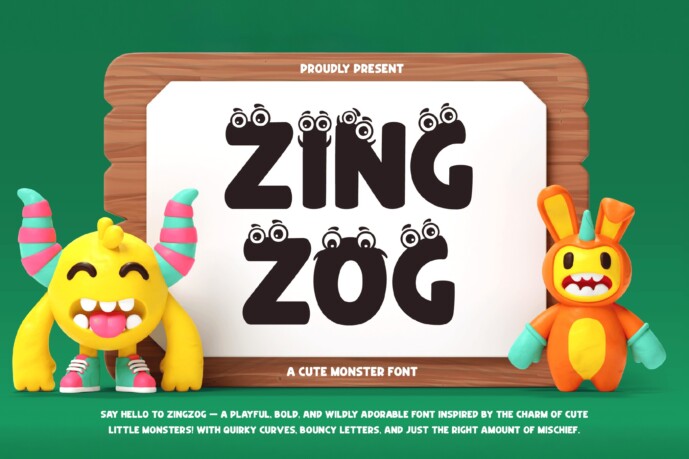
Zingzog Cute Font
Designer: Creava
Zingzog is a cute monster font bursting with playful charm and cheerful energy. Its bold shapes, lively baseline, and fun monster-like details make it perfect for kids’ projects, birthday invitations, cartoons, game titles, and any design that needs a splash of imagination. Each letter is full of personality, bringing joy and a mischievous vibe to every creation.
• Multilingual
• Uppercase alphabet A-Z
• Lowercase alphabet a-z
• Numbers 0-9
• Some punctuation
• Alternates & Ligatures